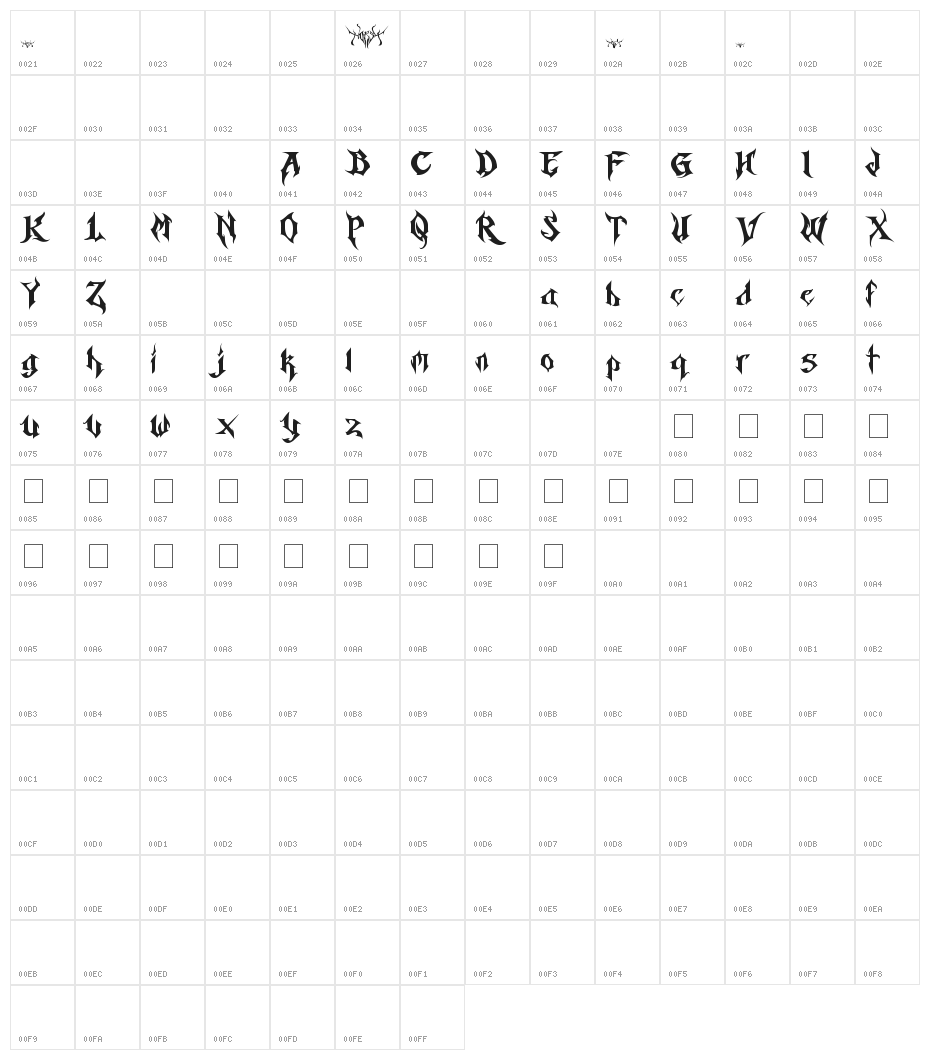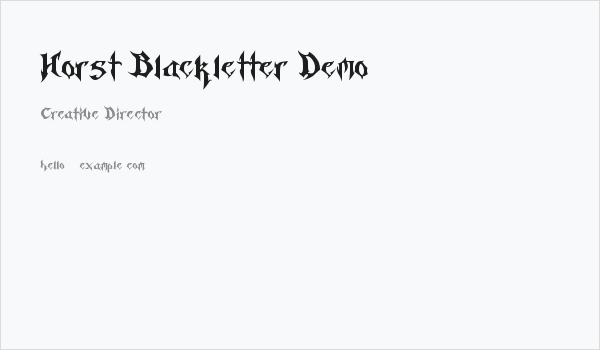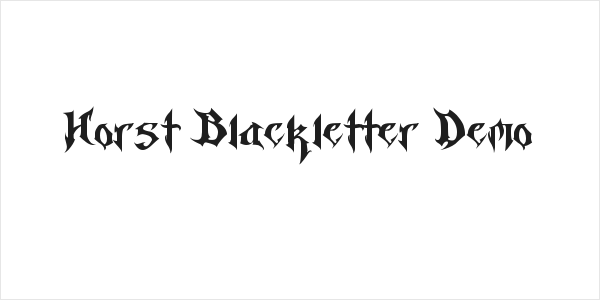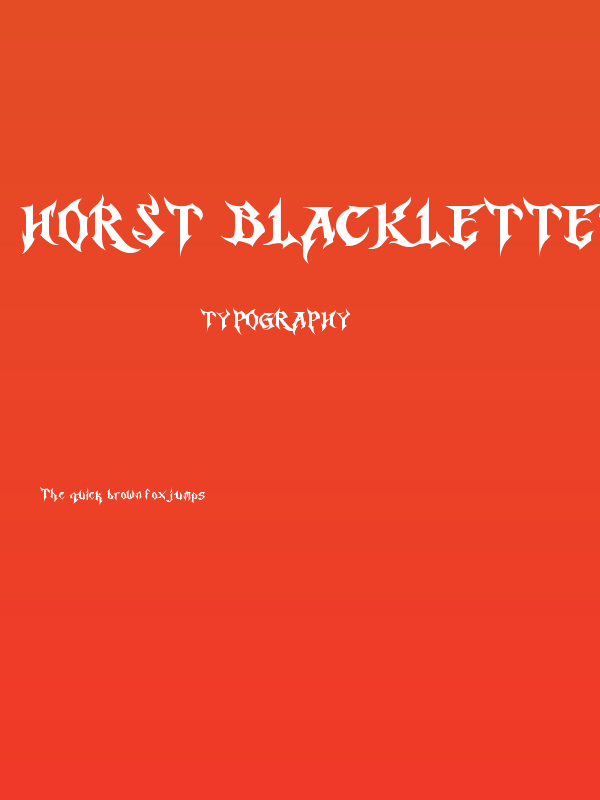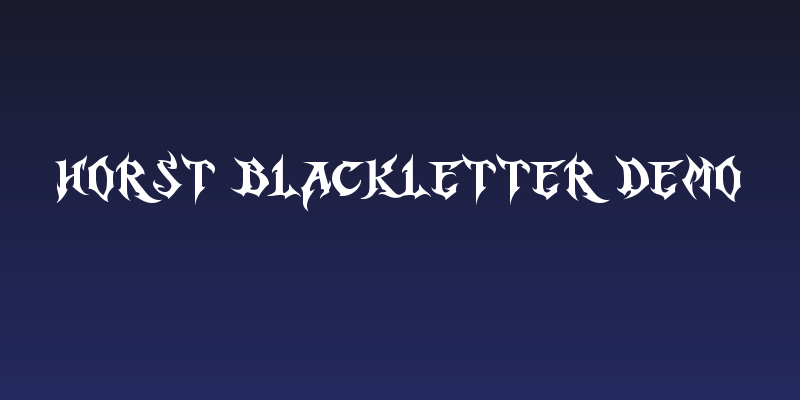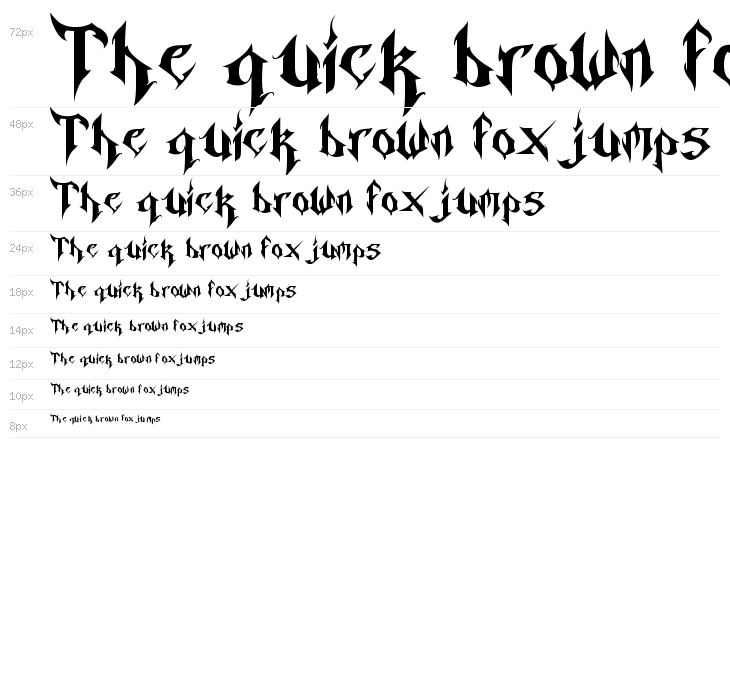
Horst Blackletter Demo Font
Horst Blackletter Demo Description
This font exhibits a striking and intricate Blackletter style, characterized by its sharp, angular lines and dramatic flourishes. The uppercase letters are particularly bold, with pointed serifs and elaborate strokes that create a sense of movement and intensity. The lowercase letters maintain this dramatic flair, with consistent angularity and a cohesive design that complements the uppercase set. The numerals and special characters are equally ornate, ensuring a uniform aesthetic across all glyphs. This font's historical and gothic appearance makes it ideal for projects that require a sense of tradition and grandeur.
| Overall Style | Vintage, Gothic |
| Proposed Projects | Ideal for use in historical documents, gothic-themed designs, book covers, posters, and branding that requires a traditional or medieval aesthetic. |